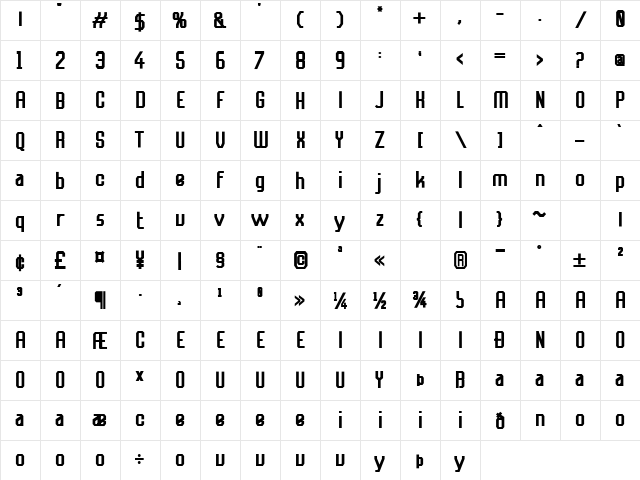
Futurama Bold
Design Context for Futurama Typeface
Futurama has a distinctly futuristic character, with geometric precision and clean angles that feel at home in technology, gaming, and sci-fi contexts. Its bold stroke weight gives it real presence on the page.
Pro Tip: Use Futurama in combination with a neutral sans for body text. Let it define the brand voice in headlines while keeping reading comfortable elsewhere.